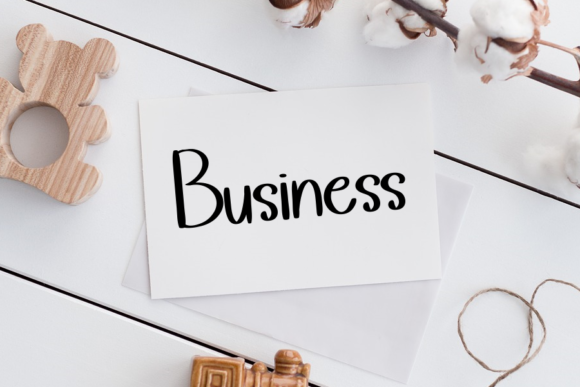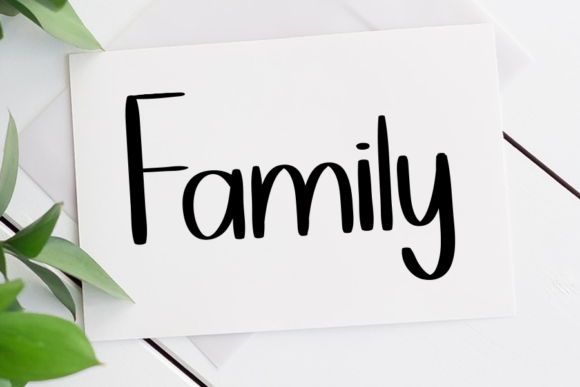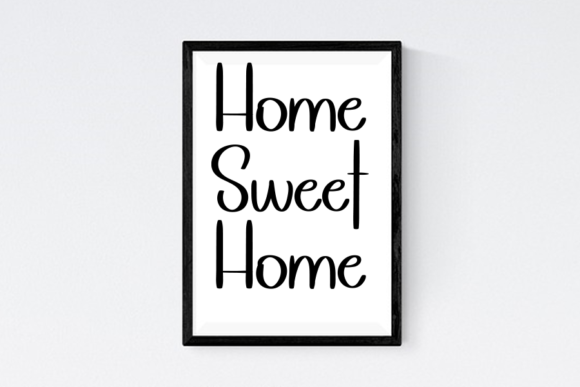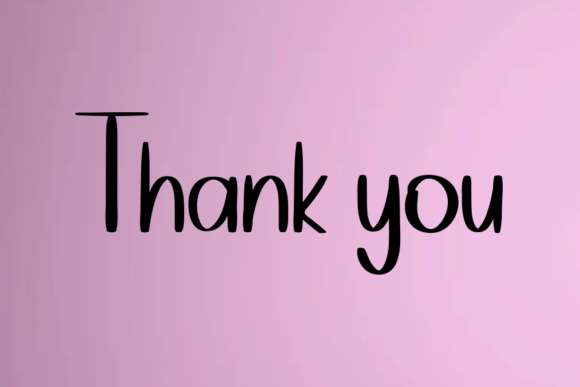
Fantastic Font
About Fantastic Font
Fantastic is a relaxed handwritten font that has a modern yet whimsical style. It will undoubtedly immerse your designs into a fun, cool world.